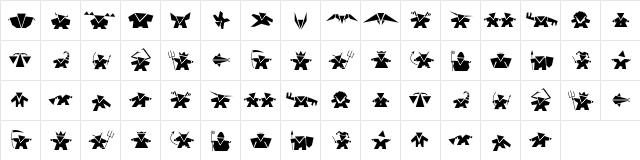
Damgram Regular
Design Context for Damgram Typeface
Damgram is a composed and adaptable typeface that performs quietly and consistently across a wide range of design contexts.